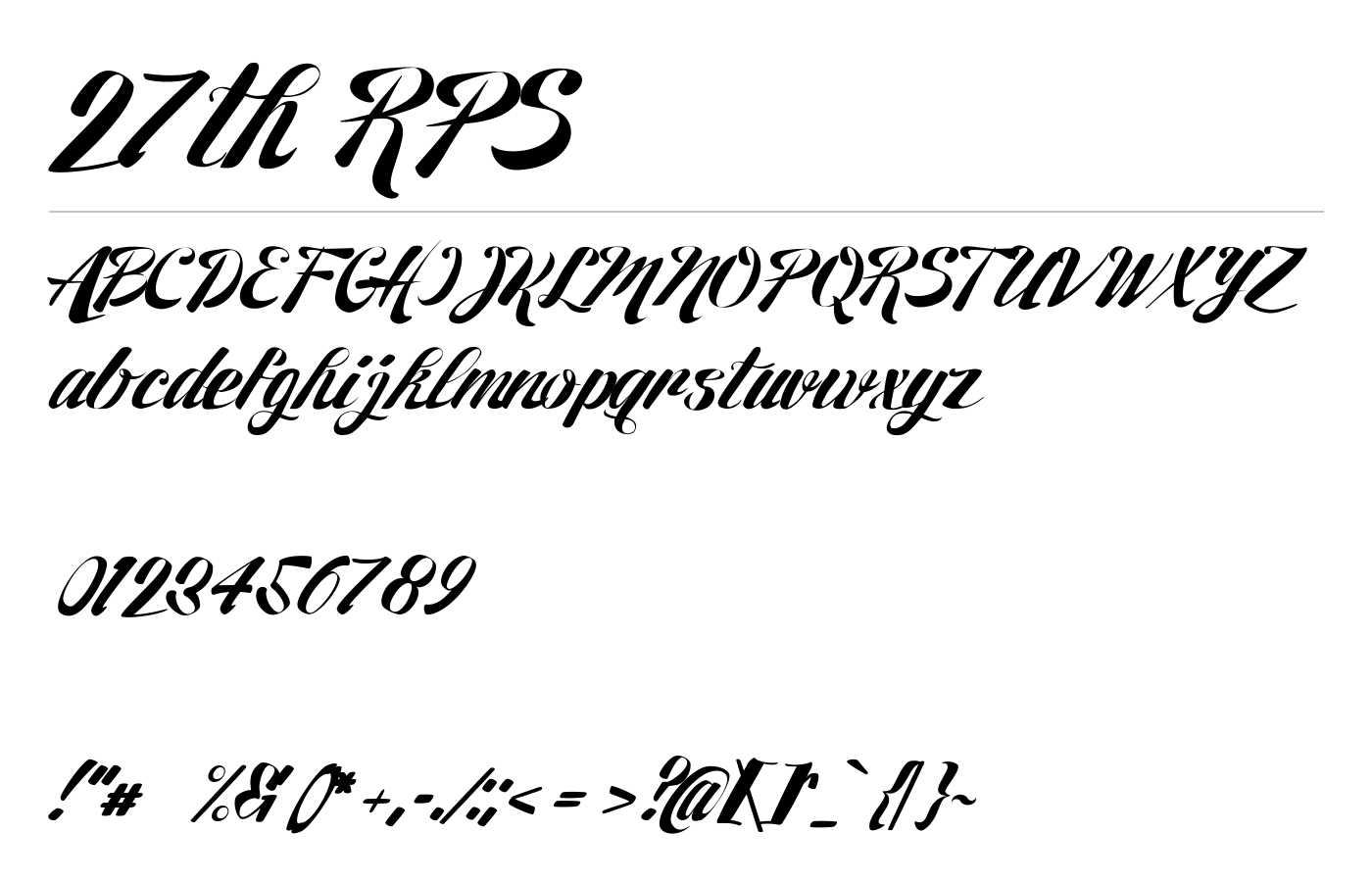
27th RPS is a bold and elegant script font with a strong calligraphic influence, featuring smooth, flowing strokes and distinctive sharp contrasts between thick and thin lines. Its stylish, slightly condensed letterforms and cursive nature make it perfect for sophisticated branding, invitations, and headlines that require a touch of classic refinement and personality. This font works well where a luxurious, timeless feel is desired while maintaining clear readability.
27th RPS Font
About 27th RPS Font